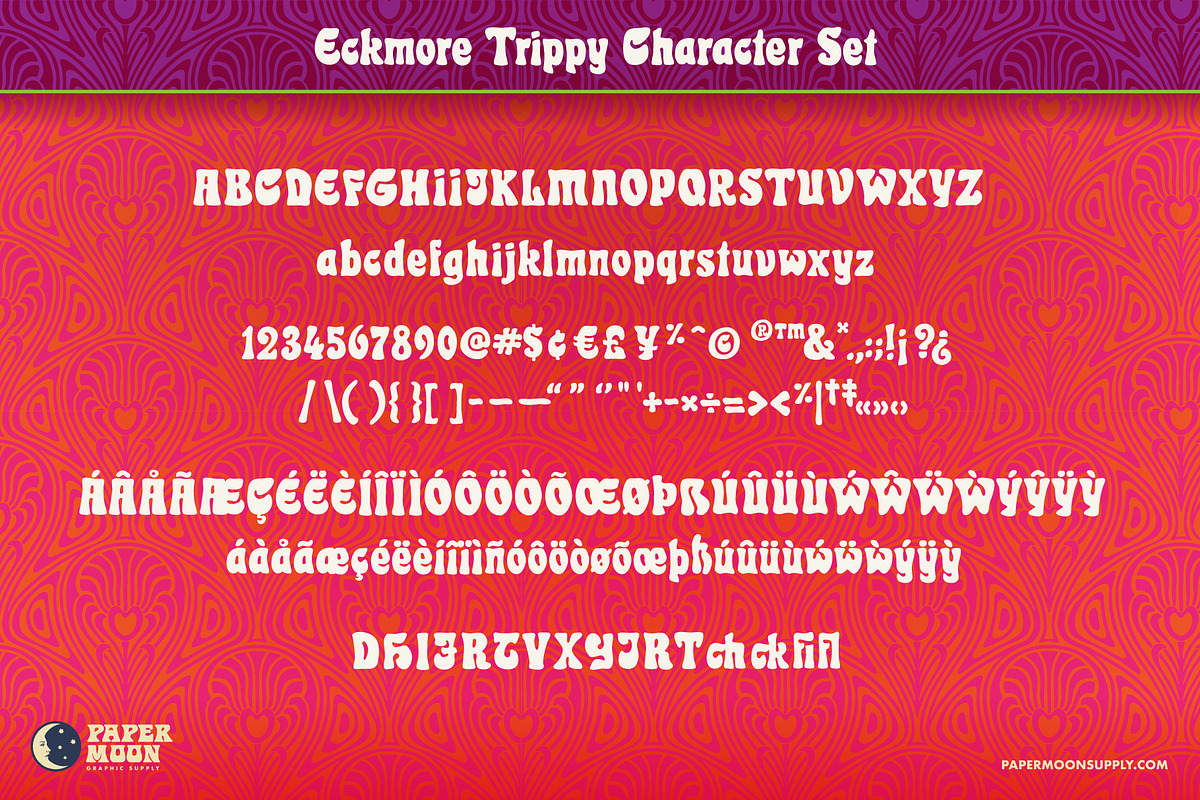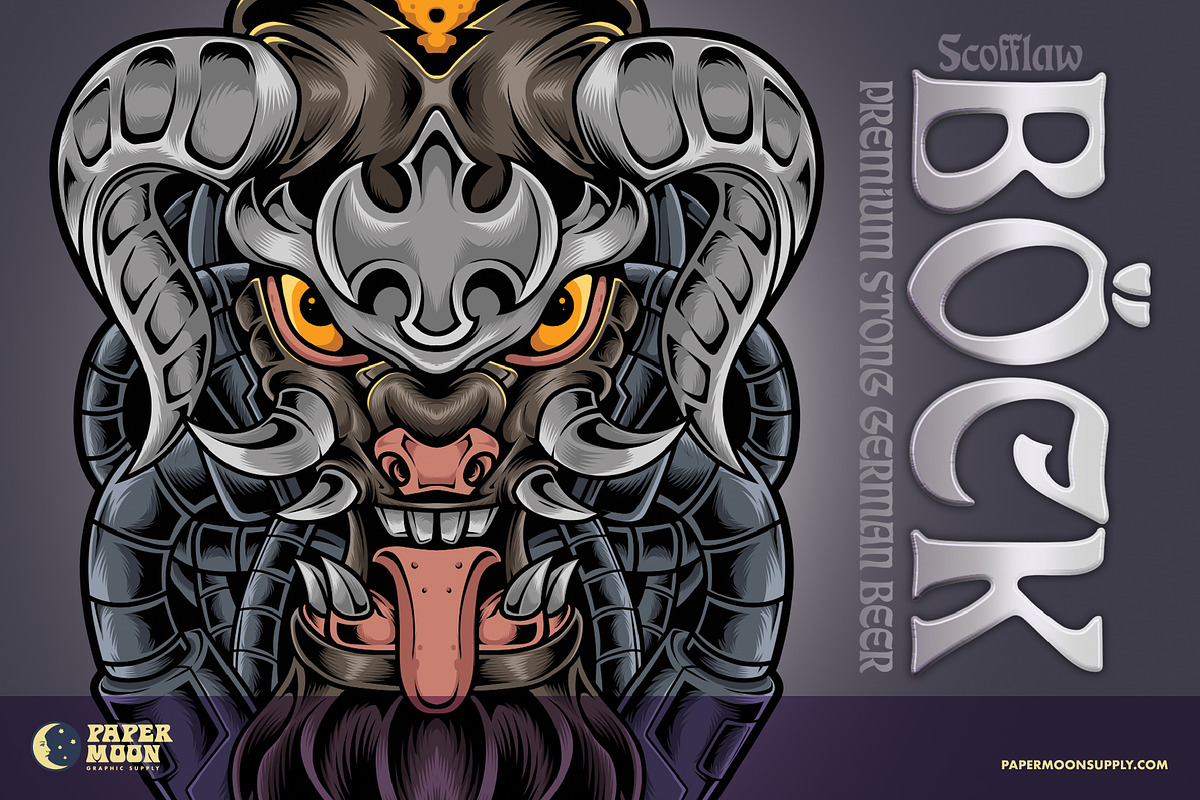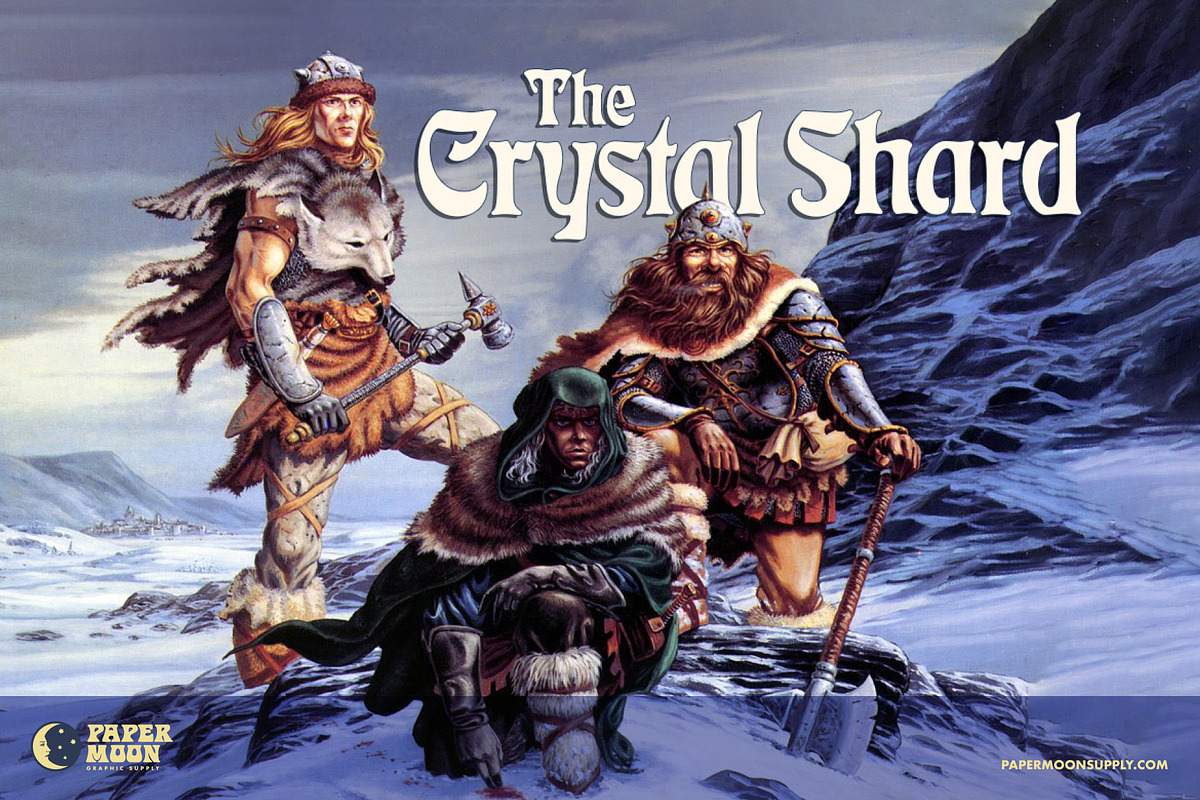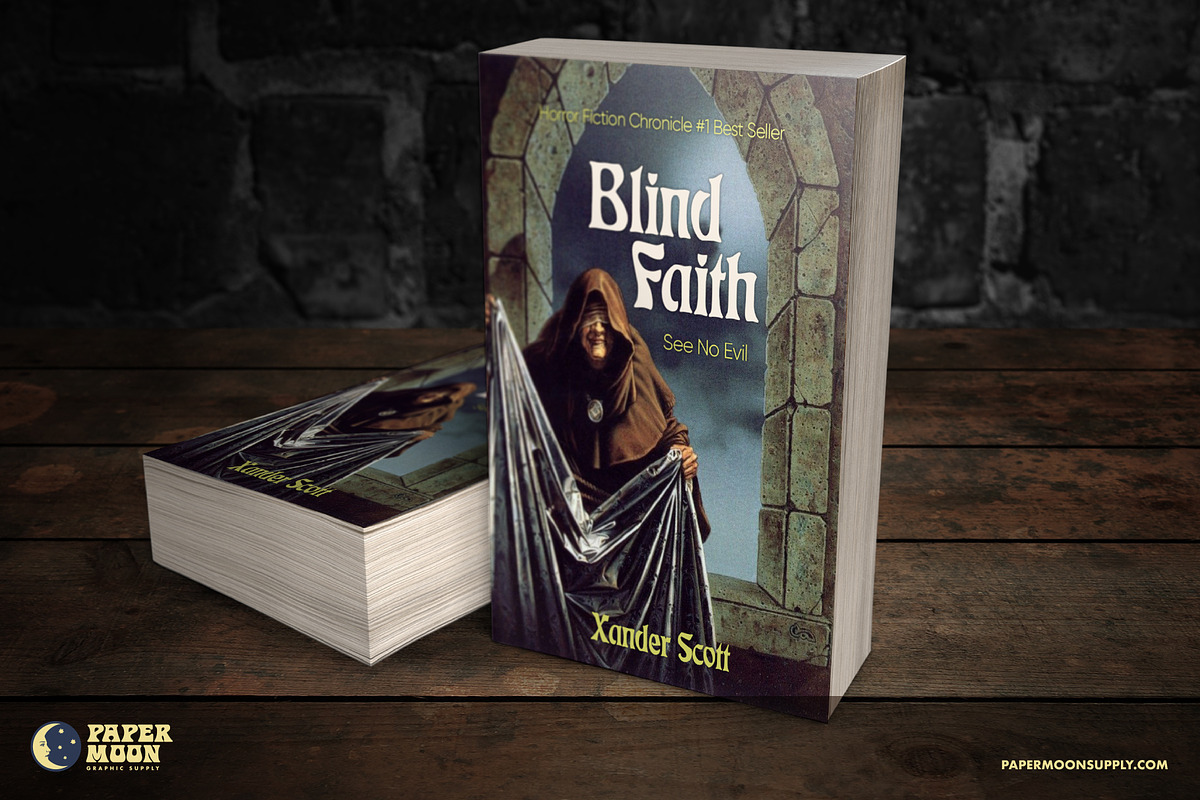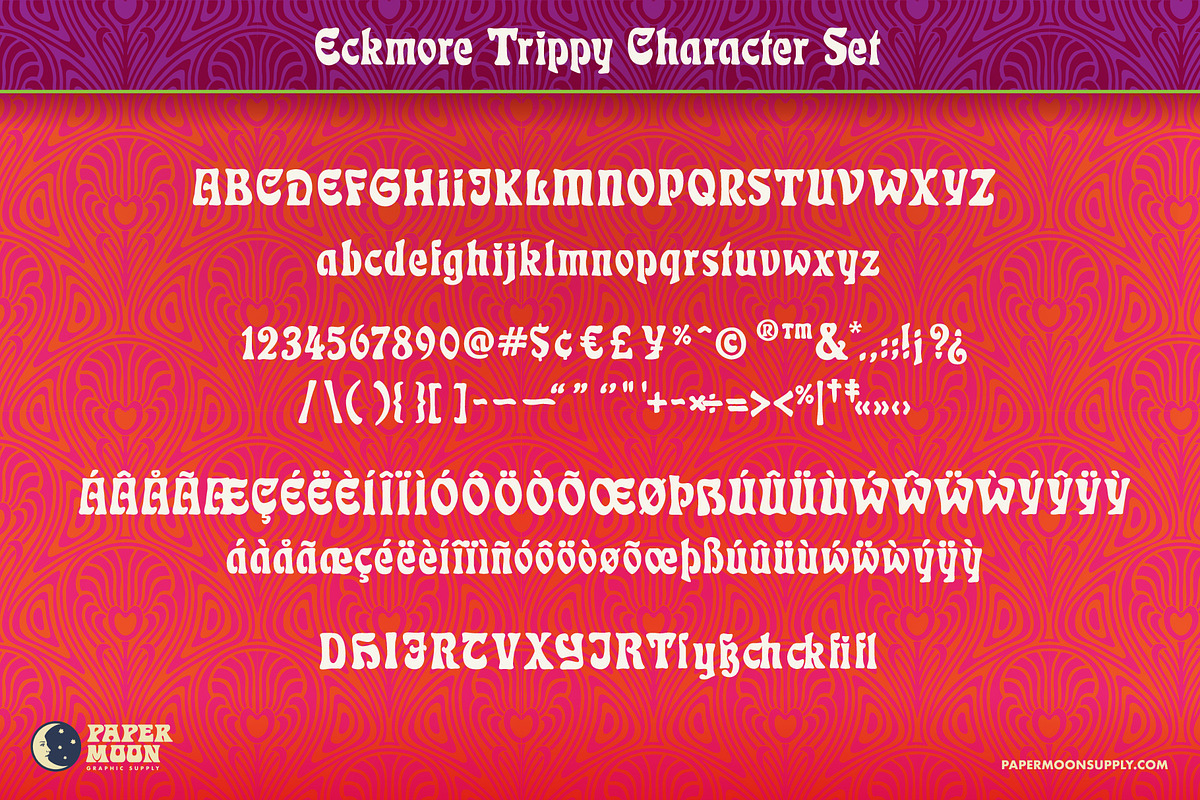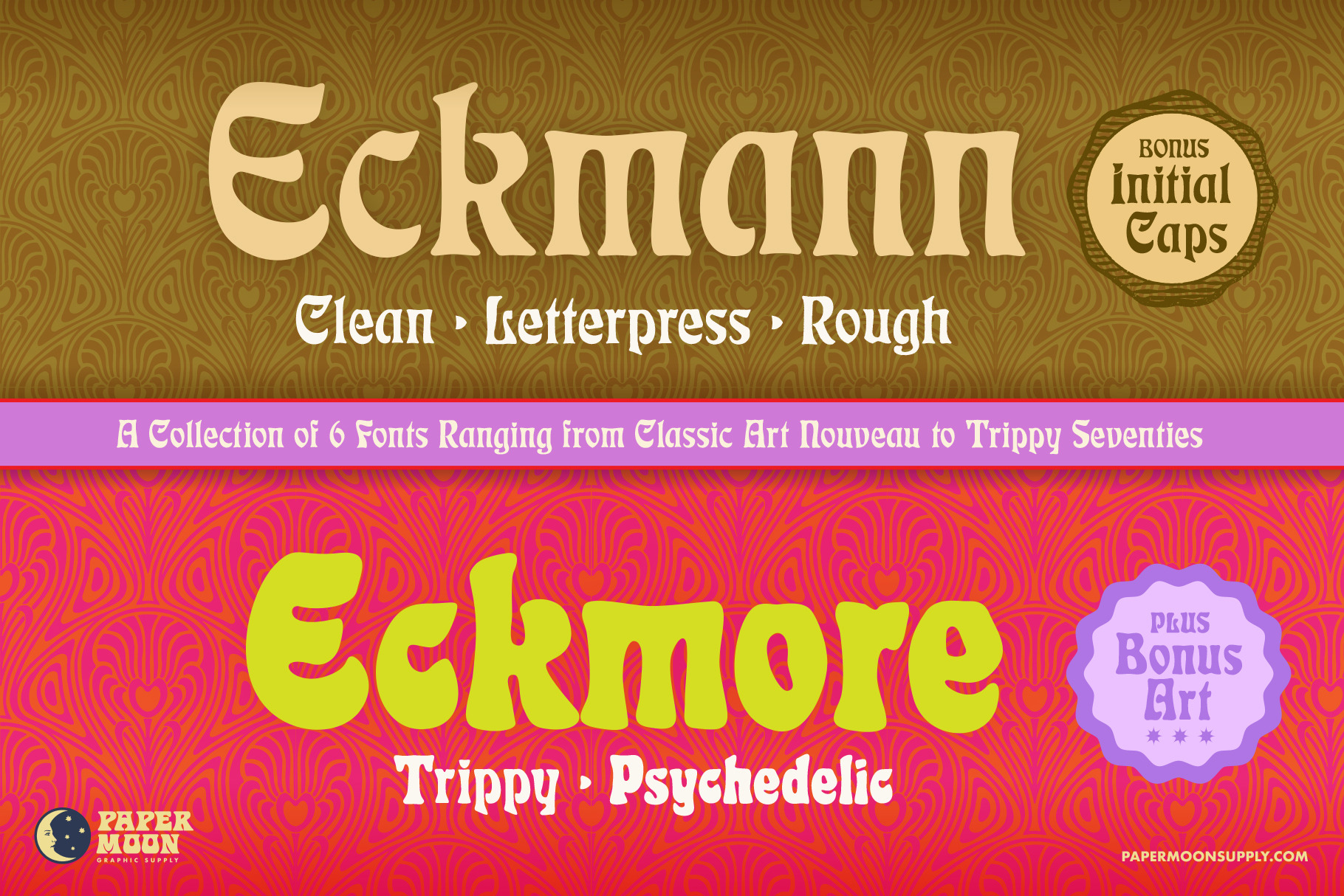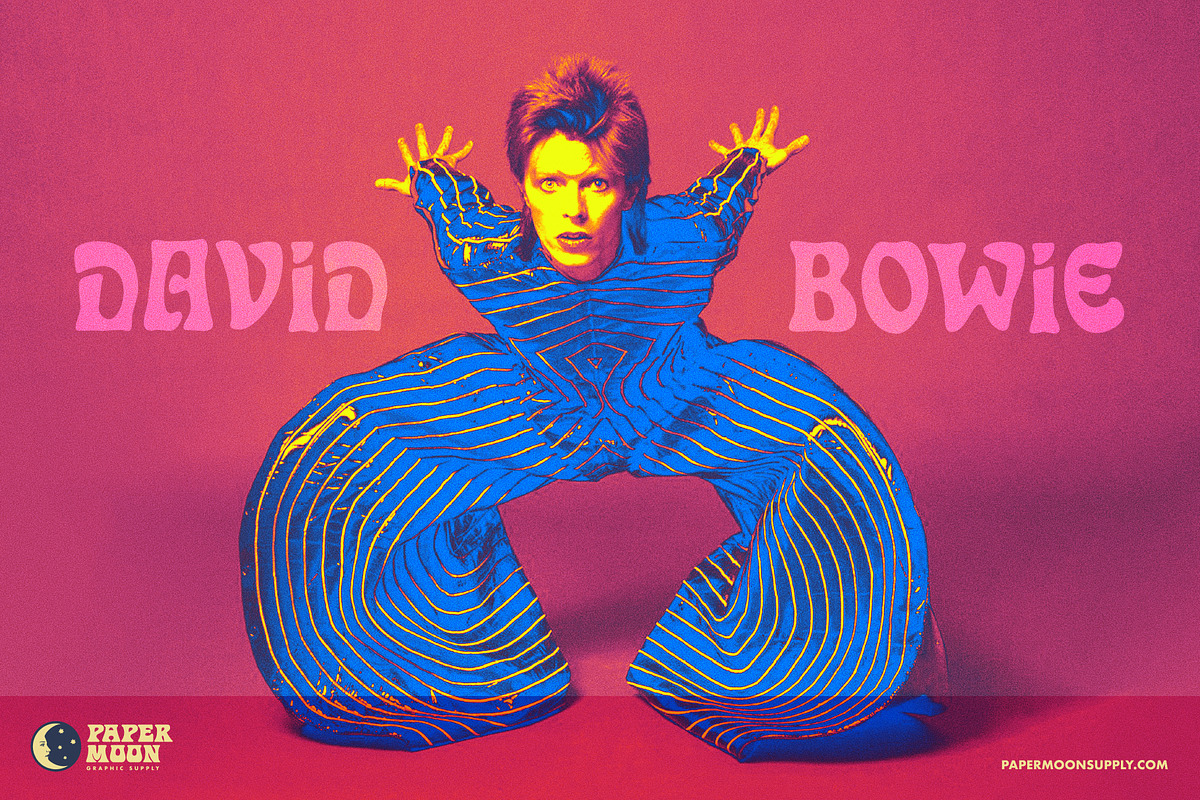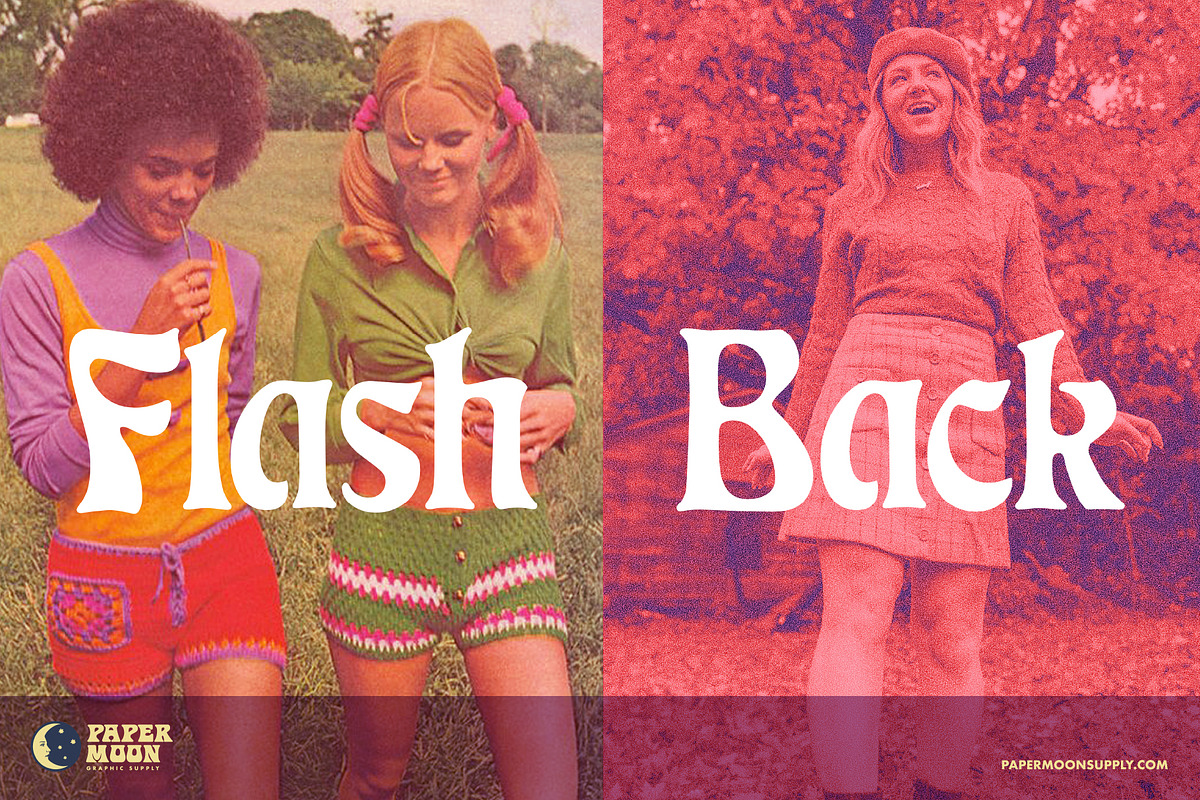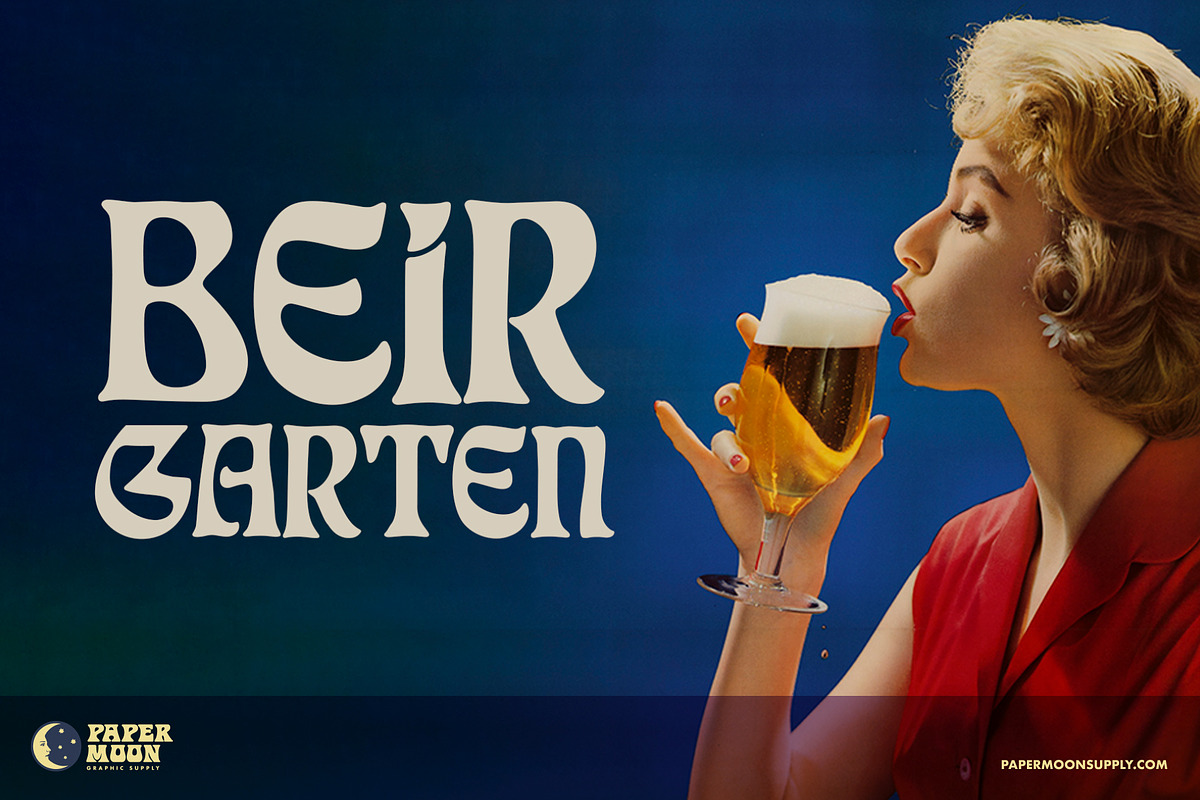
Eckmann & Eckmore Psychedelic Fonts
A new Art Nouveau and psychedelic font collection from Paper Moon Graphic Supply
Eckmann and Eckmore are inspired by the art nouveau fonts used on 1960s & 1970s psychedelic concert posters.
Eckmann is a redrawing based on original sketches and type specimens of the original 1900 Otto Eckmann typeface Eckmannschrift. It includes the original characters designed by Otto Eckmann not included in most modern releases of the font. Though it is a vintage typeface, it has found several popular resurgences of use over its 100 years in existence, including today's retro styles.
Eckmore is a modern psychedelic variation inspired by 1970s concert posters of The Filmore theatre in the San Francisco Bay Area. It's casual vibe is perfect for everything from retro fashion marketing to toy packaging.
- Six styles: Clean, Letterpress, Rough, Illuminated Caps, Trippy, Psychedelic
- Complete alphabet, number, and punctuation sets
- Ligatures and alternate glyphs
Eckmann and Eckmore were developed by award-winning illustrator and designer Scott Banks.